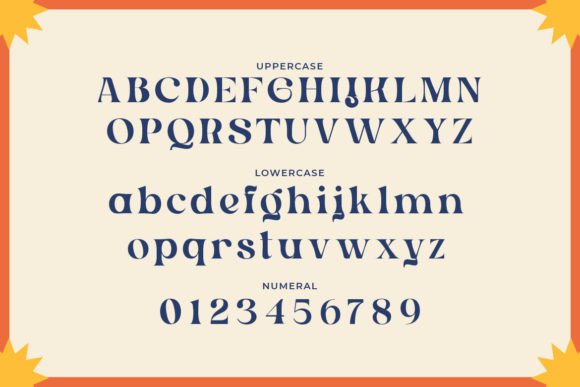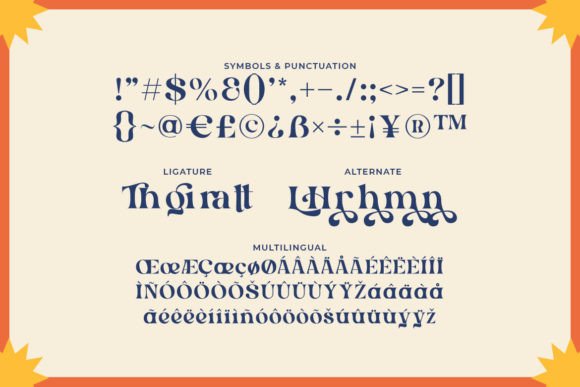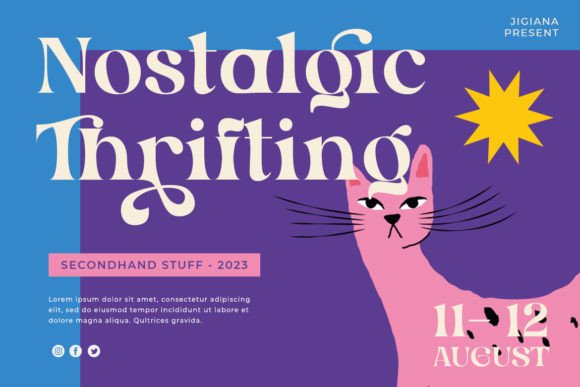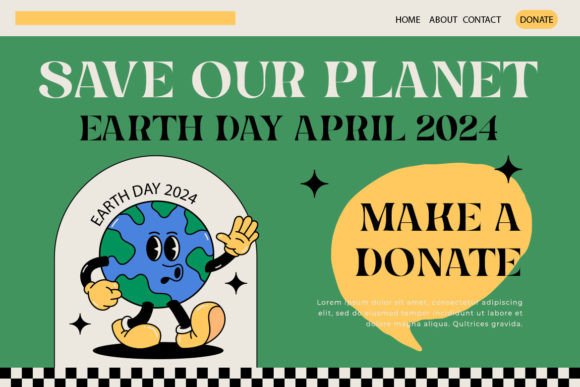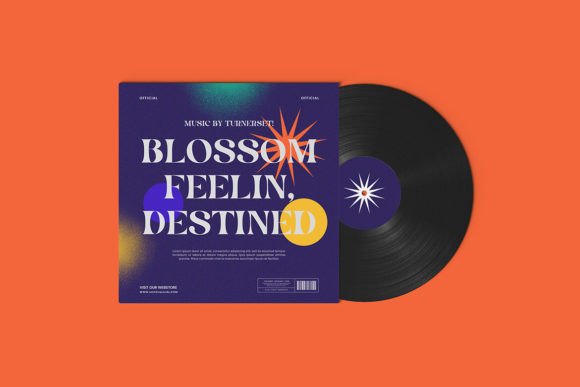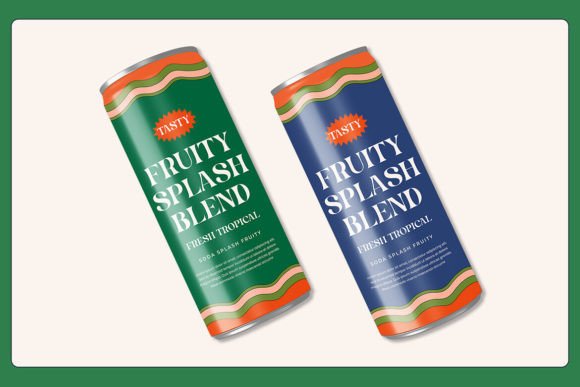
Introduction to Jigiana Font
Have you ever found yourself staring at a blank canvas, waiting for the perfect spark to ignite your creative project? For designers, this moment is a familiar thrill – a chance to unleash their imagination and bring a unique vision to life. That’s where the Jigiana Font comes in – a game-changing design resource that adds an extra layer of creativity to your projects.
With its distinctive style and artistic flair, the Jigiana Font is the perfect tool for designers who want to stand out from the crowd. Whether you’re working on a high-quality logo, a stunning poster, or a website header, this font effortlessly adds a touch of individuality and personality to your creations. And the best part? It’s available for free download, making it a valuable addition to any designer’s toolkit.
As a versatile and expressive font, Jigiana Font allows you to break free from convention and unleash your creativity. Its bold and artistic style is perfect for designers who want to make a memorable impact on their audience. So why settle for a transparent background or a generic font when you can use the Jigiana Font to take your designs to the next level?
Key Features of Jigiana Font
- High-quality, professional font design perfect for creative projects and presentations.
- Features a transparent background, allowing for easy customization and versatility.
- Includes a wide range of characters, including Latin, Cyrillic, and Greek alphabets, making it suitable for multilingual projects.
- Designed with a high resolution of 300 DPI for crisp and clear text rendering.
- Perfect for use in a variety of creative projects, including logos, branding materials, and marketing collateral.
Honest Review: Jigiana Font
I recently had the chance to work with the Jigiana Font and I must say, it’s been a delightful experience. This font has truly elevated my creative project to the next level. One of the standout features of the Jigiana Font is its high quality, making it perfect for any design resource. I love that it’s a free download, which is always a bonus!
- ✨ Beautiful, intricate design that adds a touch of elegance to any project
- ✨ High quality, making it suitable for both digital and print projects
- ✨ Transparent background, allowing for seamless integration with other design elements
While the Jigiana Font is an excellent choice for many projects, there are a few limitations to consider:
- ⚠️ Limited character set, which may not be suitable for complex texts
- ⚠️ Not suitable for small font sizes, as the intricate design may become difficult to read
Overall, I’m thoroughly impressed with the Jigiana Font and would highly recommend it to anyone looking for a high-quality, free design resource. Its beautiful design and high quality make it perfect for creative projects, and its transparent background makes it easy to integrate with other design elements.
Tips for Getting the Most Out of Jigiana Font
To get the most out of Jigiana Font, experiment with different font sizes, styles, and combinations. You can also use the font in conjunction with other design elements, such as images and graphics, to create a unique and visually appealing design.
The Jigiana Font is commonly used in creative projects, such as graphic design, digital art, and typography. It’s also used in branding and marketing materials, such as logos, business cards, and brochures.